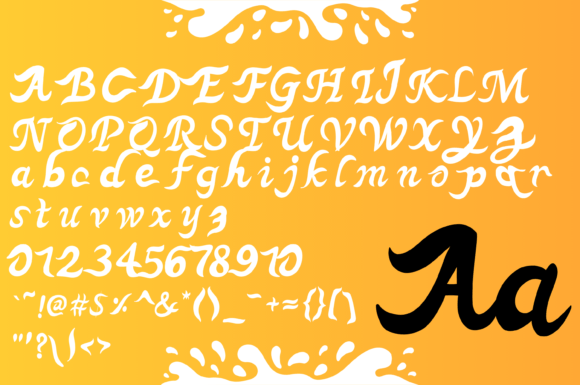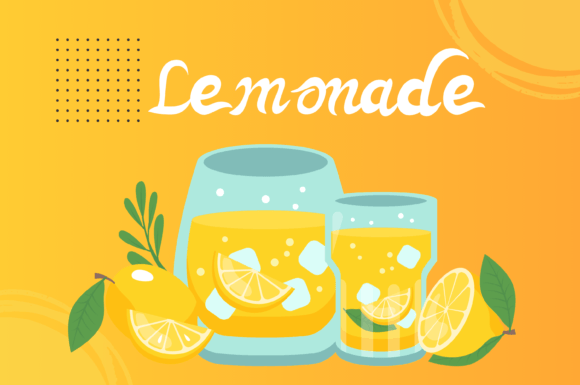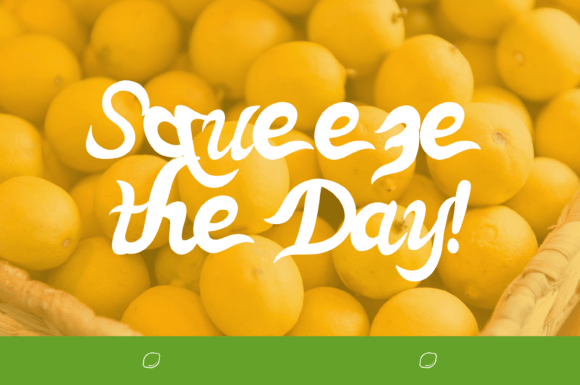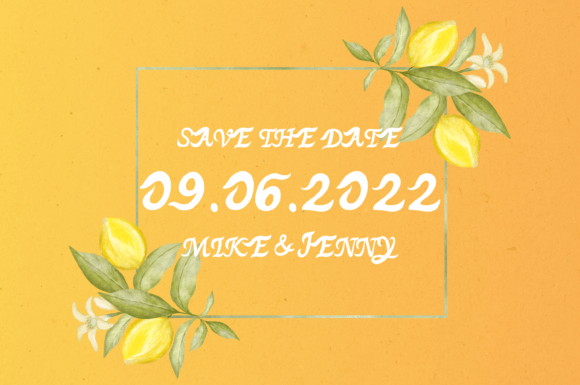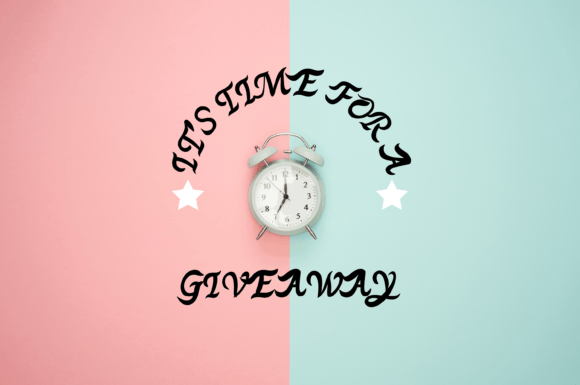
Introduction to Lemon Farm Font
Have you ever found yourself brainstorming a creative project, but struggling to bring it to life with the right font? You envision a whimsical, eye-catching design that perfectly captures the essence of your idea, but nothing seems quite right. This is where the Lemon Farm Font comes in – a high-quality, handwritten display font that can breathe new life into your most ambitious creative projects.
With its unique blend of elegance and playfulness, the Lemon Farm Font is an invaluable design resource that can be seamlessly integrated into a wide range of projects. Whether you’re designing a wedding invitation, a children’s book, or a promotional poster, this font is sure to make your design stand out. And the best part? The Lemon Farm Font is available for free download, complete with a transparent background for easy editing and customization.
For designers looking to elevate their work and bring a touch of personality to their designs, the Lemon Farm Font is a valuable addition to any design arsenal.
Key Features of Lemon Farm Font
- High-Quality Typography – The Lemon Farm Font is designed with precision and attention to detail, ensuring a high-quality visual experience for any creative project.
- Transparent Background – The font’s transparent background allows for seamless integration with various design elements, providing maximum flexibility in creative projects.
- Large Character Set – The font features a large character set, including uppercase and lowercase letters, numbers, and special characters, making it ideal for various design applications.
- High Resolution – The font is available in high resolution, ensuring crisp and clear typography in designs, even at large sizes.
- Perfect for Creative Projects – The Lemon Farm Font is an excellent choice for creative projects, including graphic design, digital art, and publishing, thanks to its unique and elegant design.
Honest Review: Lemon Farm Font
I recently stumbled upon the Lemon Farm Font, and I must say it’s a refreshing addition to my design resource library. This high-quality font is perfect for creative projects that require a touch of whimsy and charm.
- ✨ Unique design aesthetic that’s both modern and vintage-inspired
- ✨ Clear and legible even at smaller font sizes
- ✨ Comes with a transparent background, making it easy to layer with other design elements
- ⚠️ Limited font family options, making it less versatile than other font libraries
- ⚠️ Some characters may not display correctly in certain font sizes or styles
Overall, I’m impressed with the Lemon Farm Font’s potential. While it may not be perfect, it’s a great addition to any designer’s toolkit. The free download option is a major plus, and the unique design aesthetic makes it perfect for creative projects that require a touch of personality.
For best results, use the Lemon Farm Font in conjunction with a transparent background to create a clean and modern design. You can also experiment with different font sizes and colors to add depth and visual interest to your project.
The Lemon Farm Font is ideal for creative projects, such as branding, packaging, or advertising. Its high-quality design and transparent background make it perfect for use in digital designs, including social media graphics, email newsletters, or website headers.